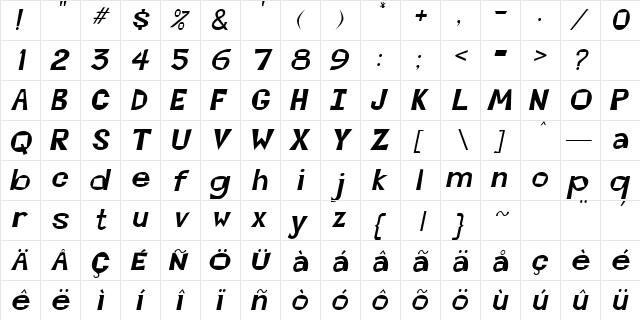
Cocktails Italic
Design Context for Cocktails Typeface
Cocktails takes a measured approach to typography — its balanced proportions and neutral character make it a reliable workhorse for both digital and print work. The slanted form adds forward momentum and visual energy.
Pro Tip: Try Cocktails for annotation and caption copy alongside an upright companion — the contrast in angle creates a dynamic but ordered typographic system.